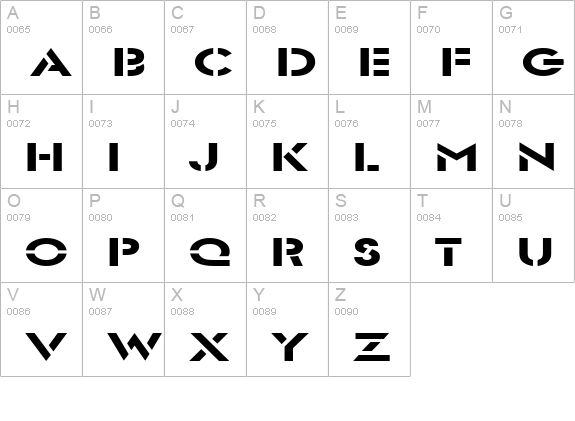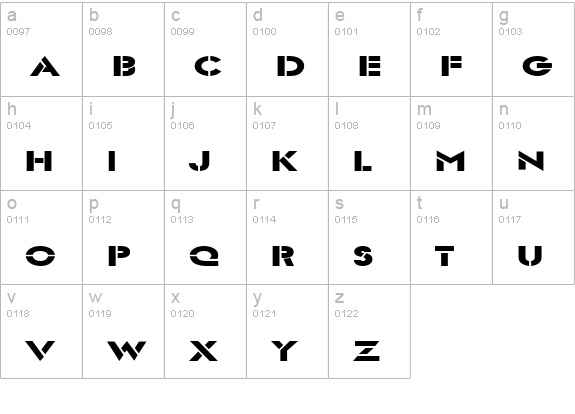
Templett Extended Normal Font Details
Templett Extended Normal is the standard, neutral, extended-width variant in the Templett typeface family \xE2\x80\x94 well suited to general body text, paragraphs, and standard typographic work.
Templett Extended Normal font is a versatile and elegant typeface that effortlessly combines classic and modern elements. With its clean lines and balanced proportions, this font is perfect for a wide range of design projects, from branding and advertising to editorial and web design. The Templett Extended Normal font exudes a sense of sophistication and professionalism, making it suitable for both formal and informal applications. Its extended character set includes a variety of punctuation marks, numerals, and special characters, ensuring that your designs will be perfectly polished and complete. One of the most appealing aspects of the Templett Extended Normal font is that it is freely available to download at FontsMarket.com. This means that you can easily and conveniently access this high-quality font without having to spend a dime. Whether you are a professional designer or a hobbyist, this free font is a valuable resource that can elevate the visual impact of your projects. In addition to its accessibility, the Templett Extended Normal font offers exceptional legibility, ensuring that your text is clear and easy to read. Its well-designed letterforms are meticulously crafted, resulting in a harmonious and pleasing aesthetic. This font is an excellent choice for headlines, body text, and everything in between, allowing you to create cohesive and visually appealing designs effortlessly. With its timeless appeal and versatile nature, the Templett Extended Normal font is a must-have for any designer's toolkit. Its free availability on FontsMarket.com makes it even more desirable, allowing you to explore its potential and enhance your creative endeavors without any financial constraints. Download the Templett Extended Normal font today and experience the beauty and functionality it brings to your designs.